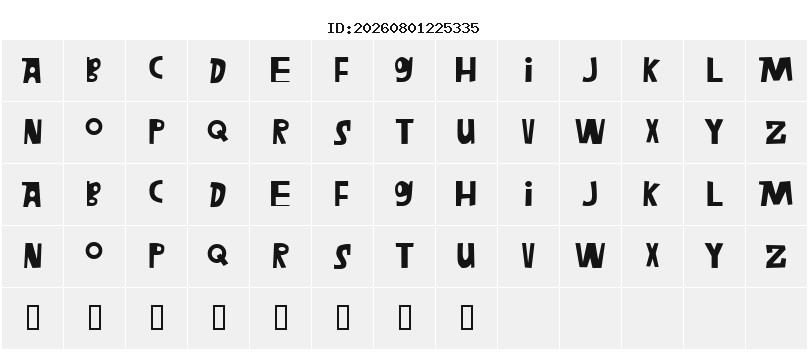
• Font Name: Megafon
About Megafon.ttf
Megafon.ttf is a modern, elegant sans-serif font designed for ultimate readability and visual harmony. Perfect for branding, headlines, web design, and print materials.